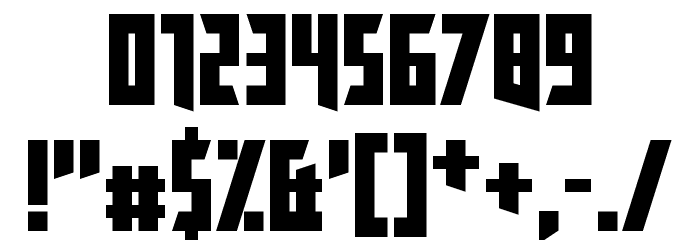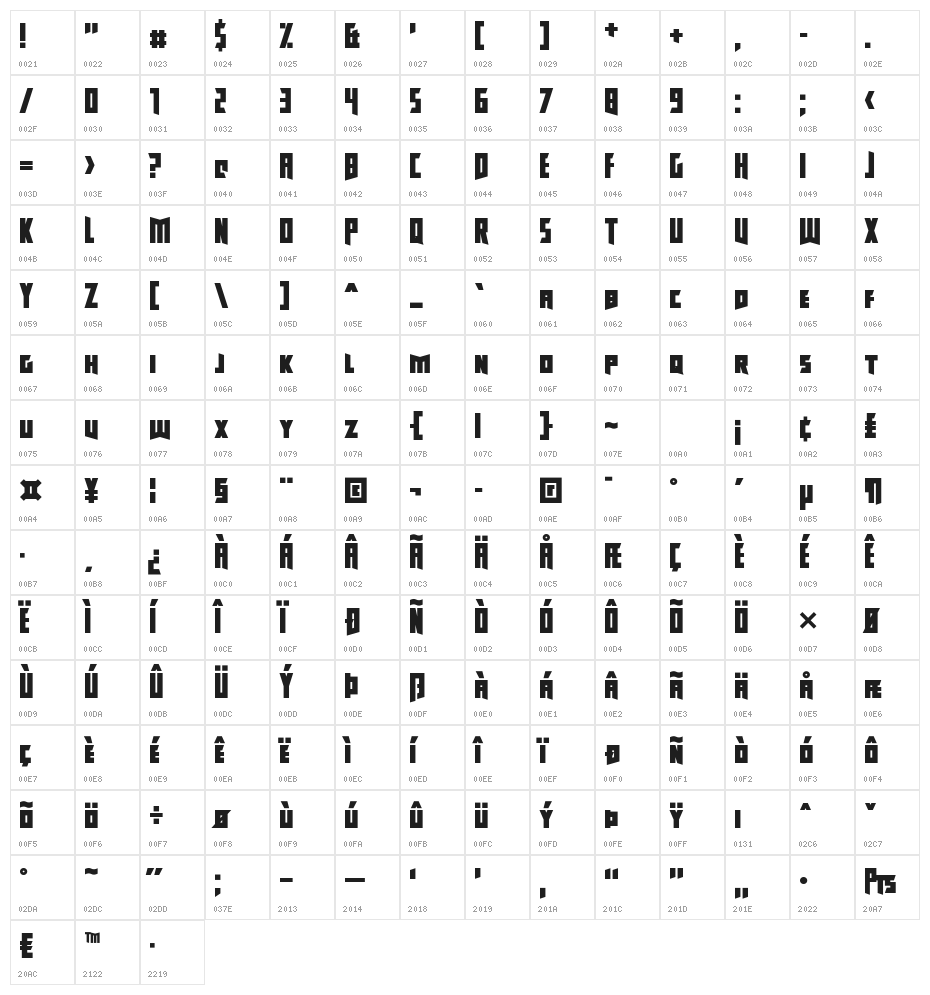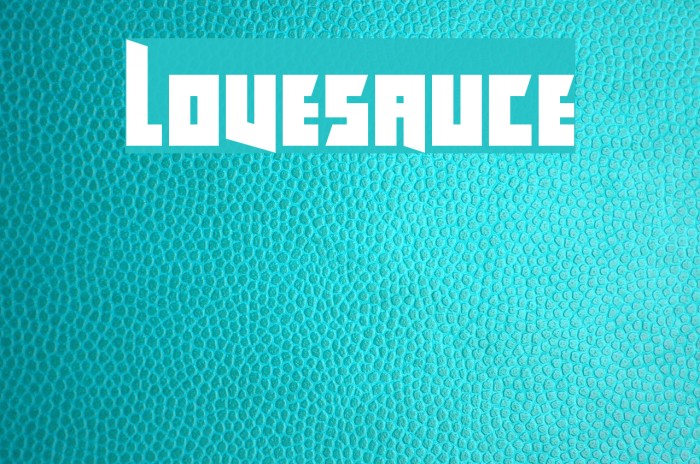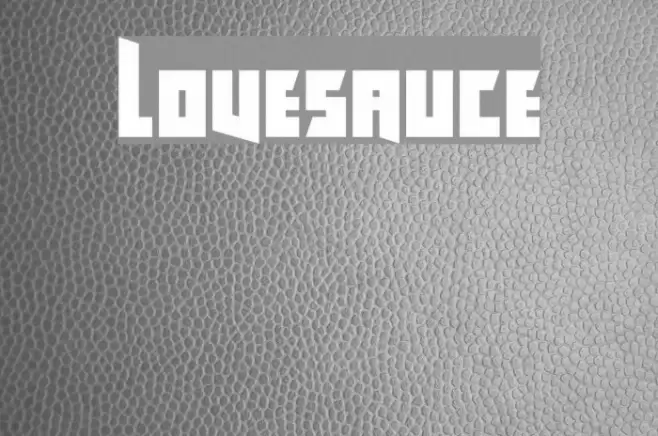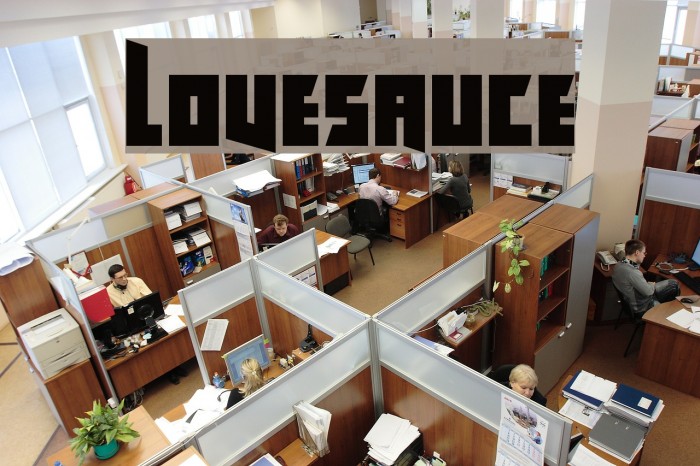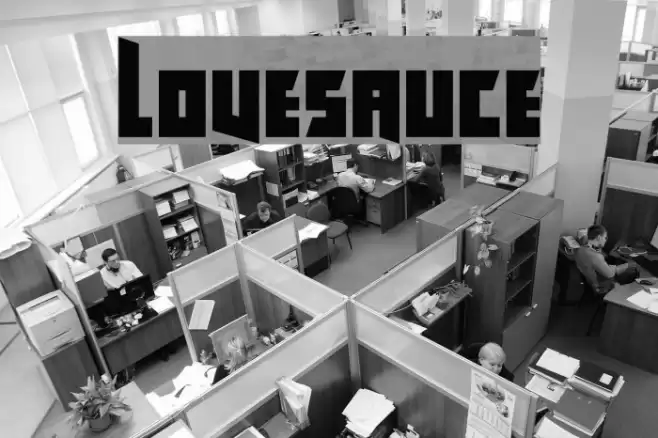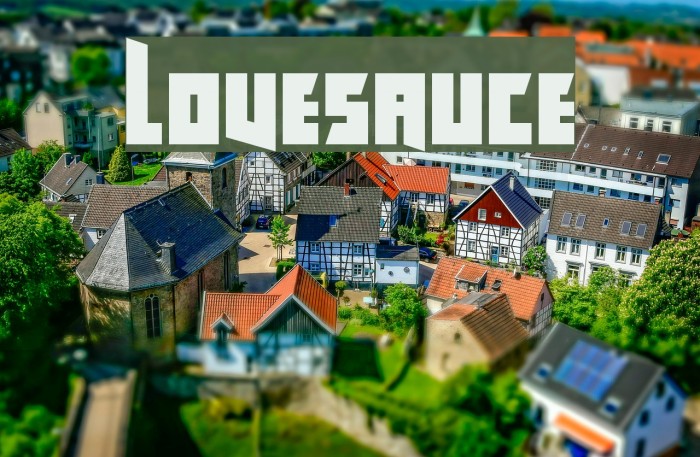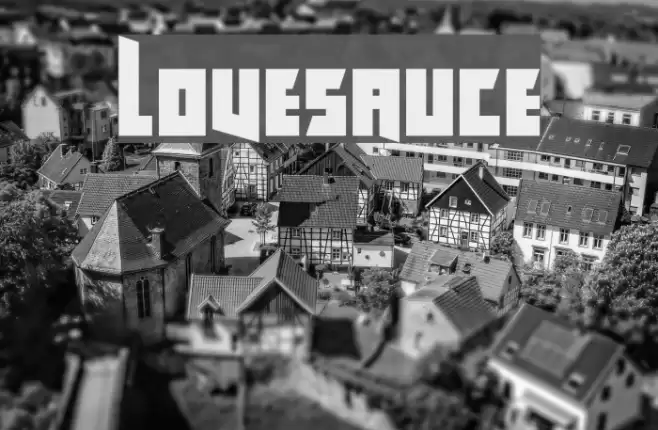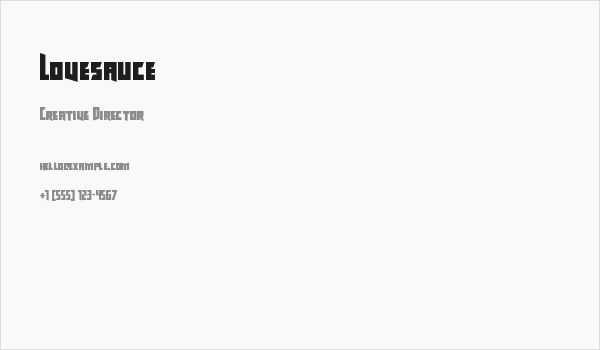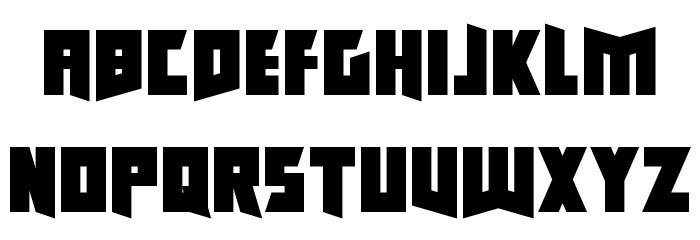
Lovesauce Font
Lovesauce Description
This font features a bold, geometric design with sharp angles and a strong presence. The characters are blocky and robust, giving a sense of power and modernity. The uppercase and lowercase letters maintain a consistent style, with the lowercase being slightly smaller but equally bold. The numbers and special characters follow the same angular and solid design, ensuring uniformity across all elements. This font is ideal for making a statement, with its eye-catching and assertive appearance.